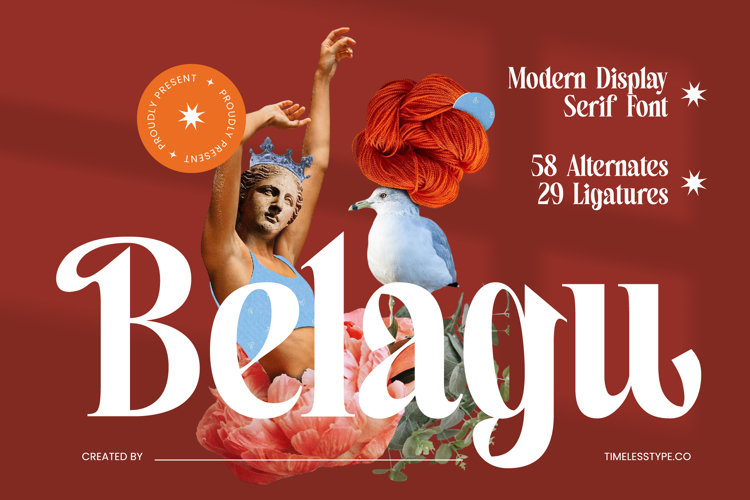
Belagu - Modern Display Serif Font
Elevate your designs with the captivating presence of Belagu - Modern Display Serif Font. This exceptional typeface blends classic serif elegance with a contemporary edge, featuring high-contrast strokes and luxurious curves that command attention. Perfect for creating a truly distinctive visual identity, its sophisticated character ensures your message is delivered with undeniable grace and impact, making it an indispensable asset for any designer seeking premium aesthetics.
Unlock boundless creative potential with Belagu - Modern Display Serif Font’s extensive character set. Boasting 58 alternates and 29 ligatures, this font offers unparalleled flexibility to craft truly bespoke typography. Each glyph is meticulously designed to provide a rich, flowing aesthetic, allowing for endless customization and ensuring every design feels uniquely tailored and exquisitely finished.